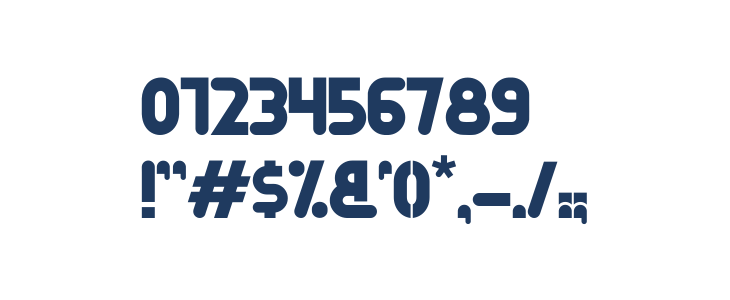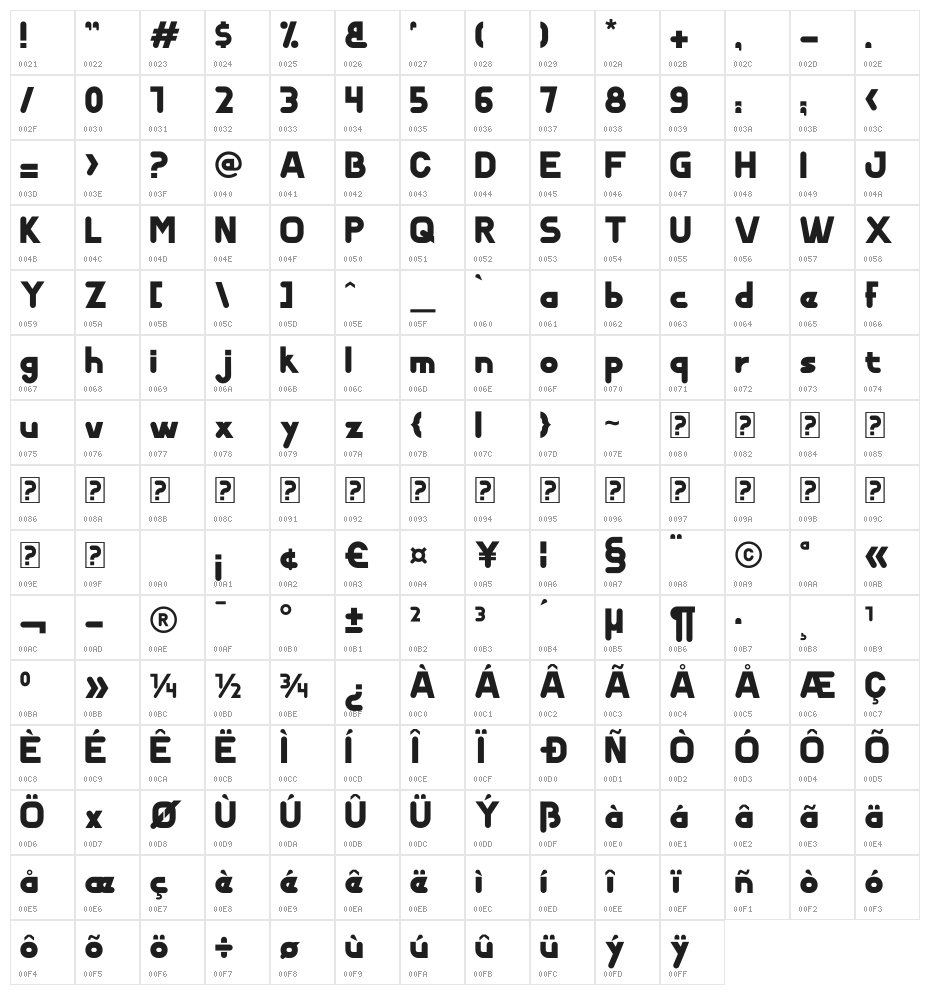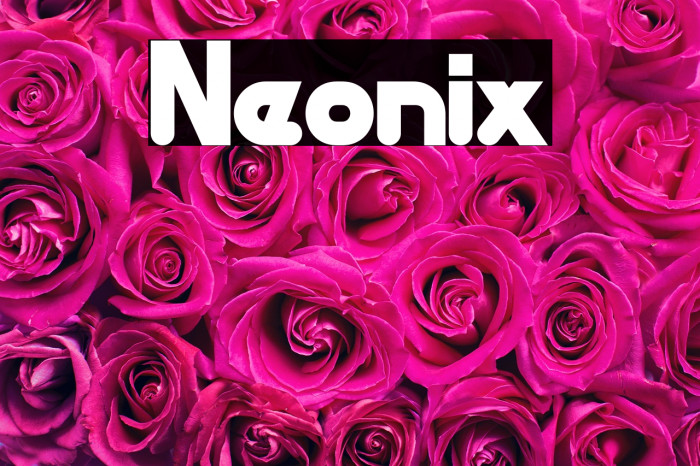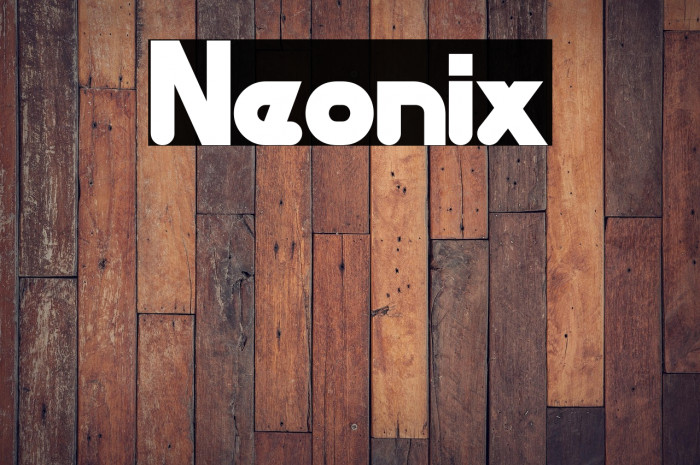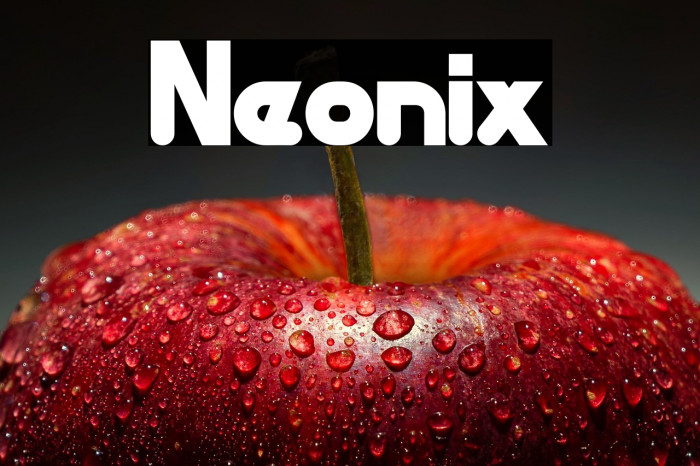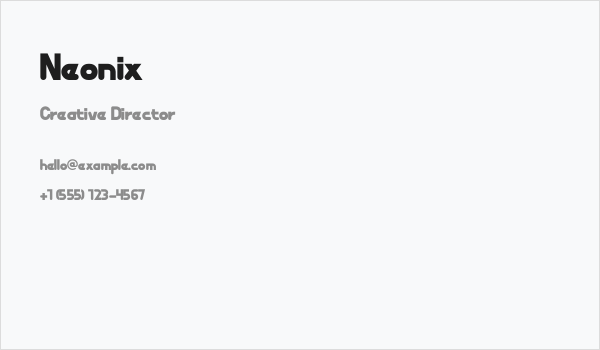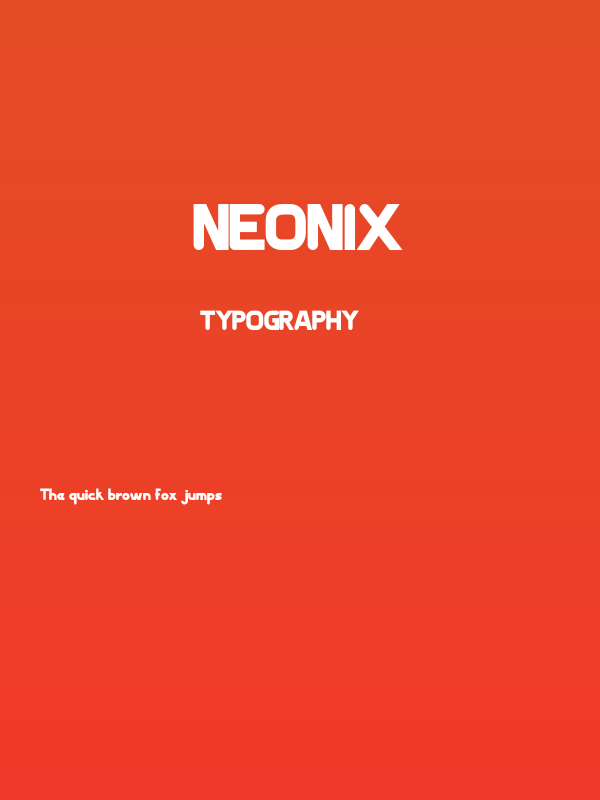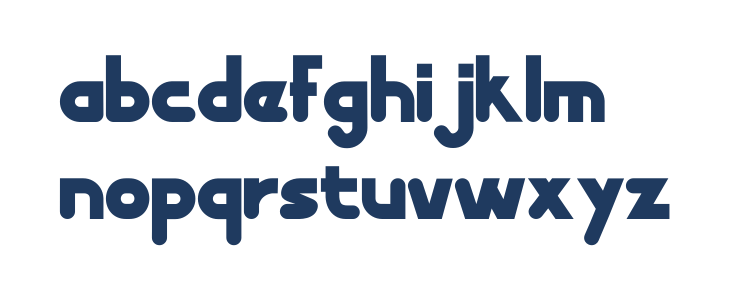
Neonix Font
Neonix Description
This font features a bold and modern design with a geometric and slightly rounded appearance. The characters are thick and uniform, providing a strong visual impact. The uppercase and lowercase letters maintain a consistent style, with smooth curves and straight lines that create a cohesive look. The numbers and special characters follow the same design principles, ensuring readability and aesthetic appeal. The overall style is contemporary, making it suitable for various digital and print applications.
| Proposed Projects | Ideal for branding, advertising, digital media, and poster design. |